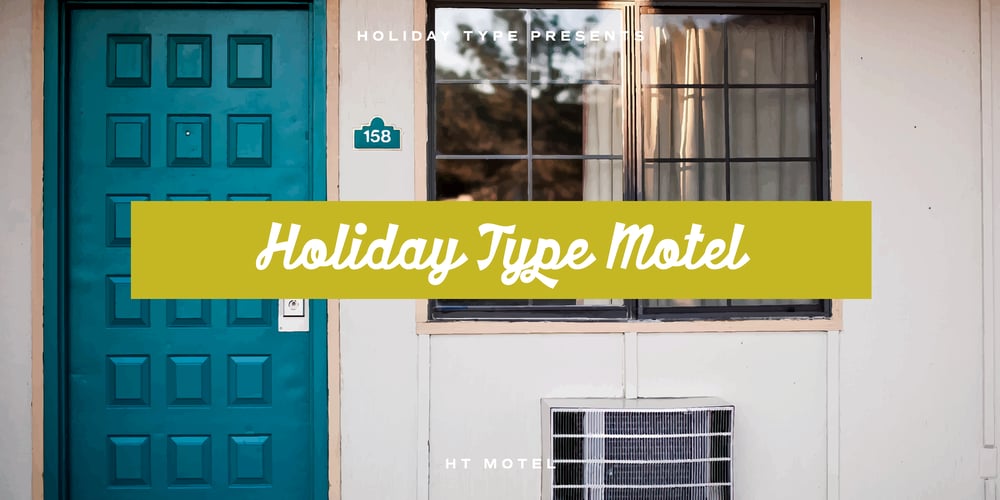
HT Motel Font Family was designed by Ryoichi Tsunekawa and published by Dharma Type. HT Motel contains 1 styles and family package options. A handsome font, perhaps a little classical. Regularly-connected script, so it’s legible but also memorable font. Holiday Type Project offers retro hand drawing scripts. Inspired by retro script on shopfront lettering, wall paint advertisements in Italy around 1950s. Check out the script fonts from Holiday Type!